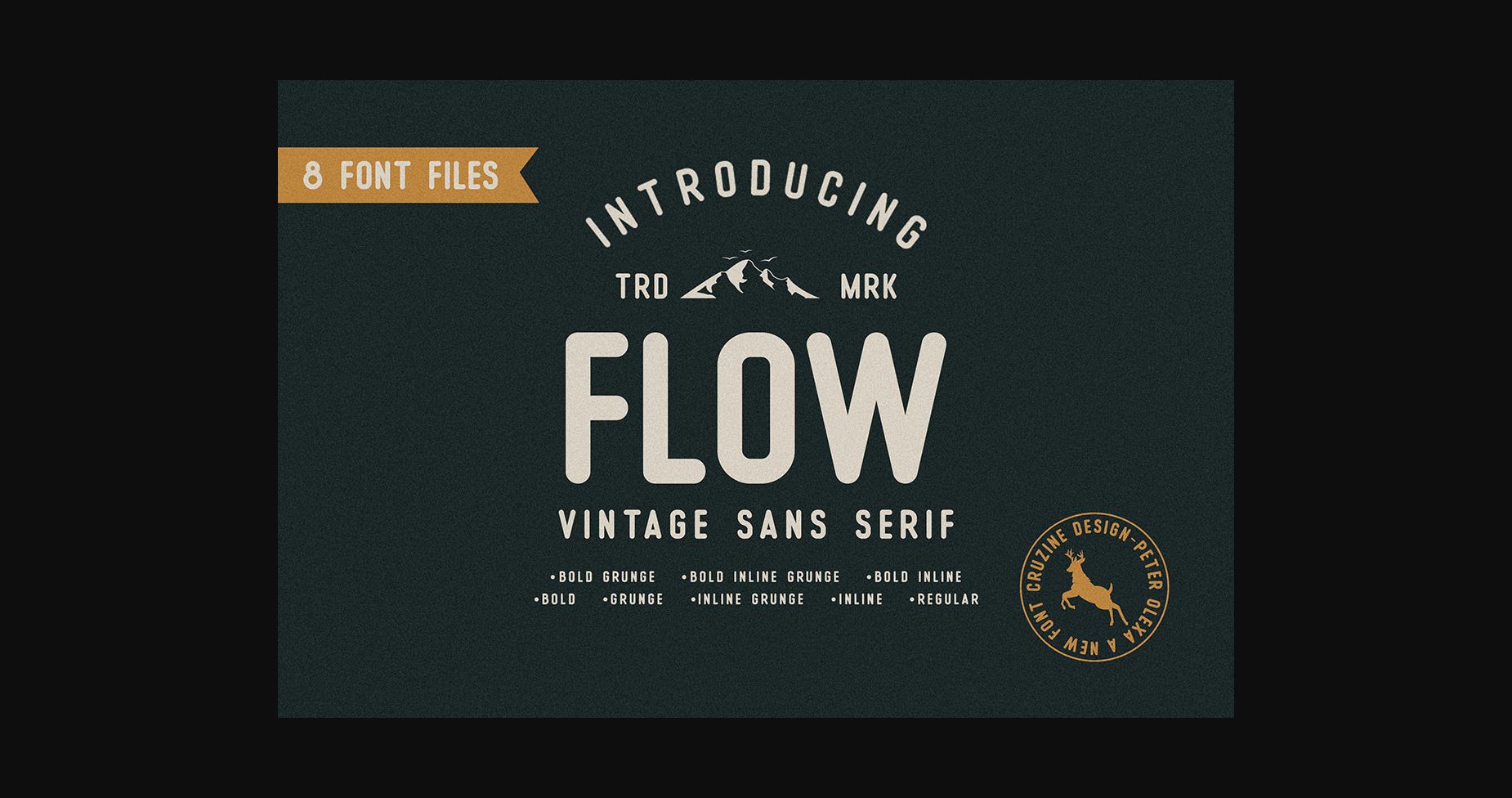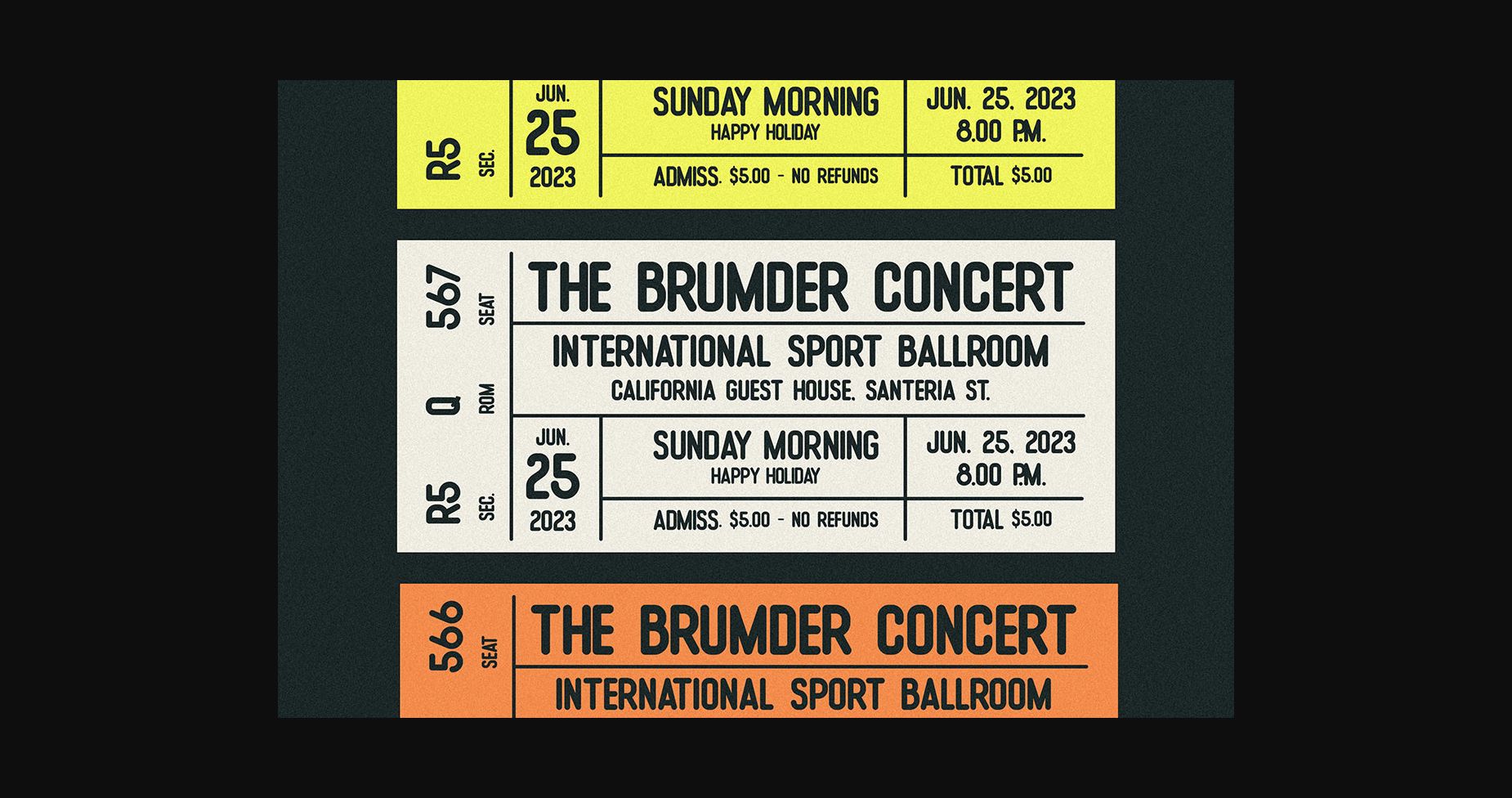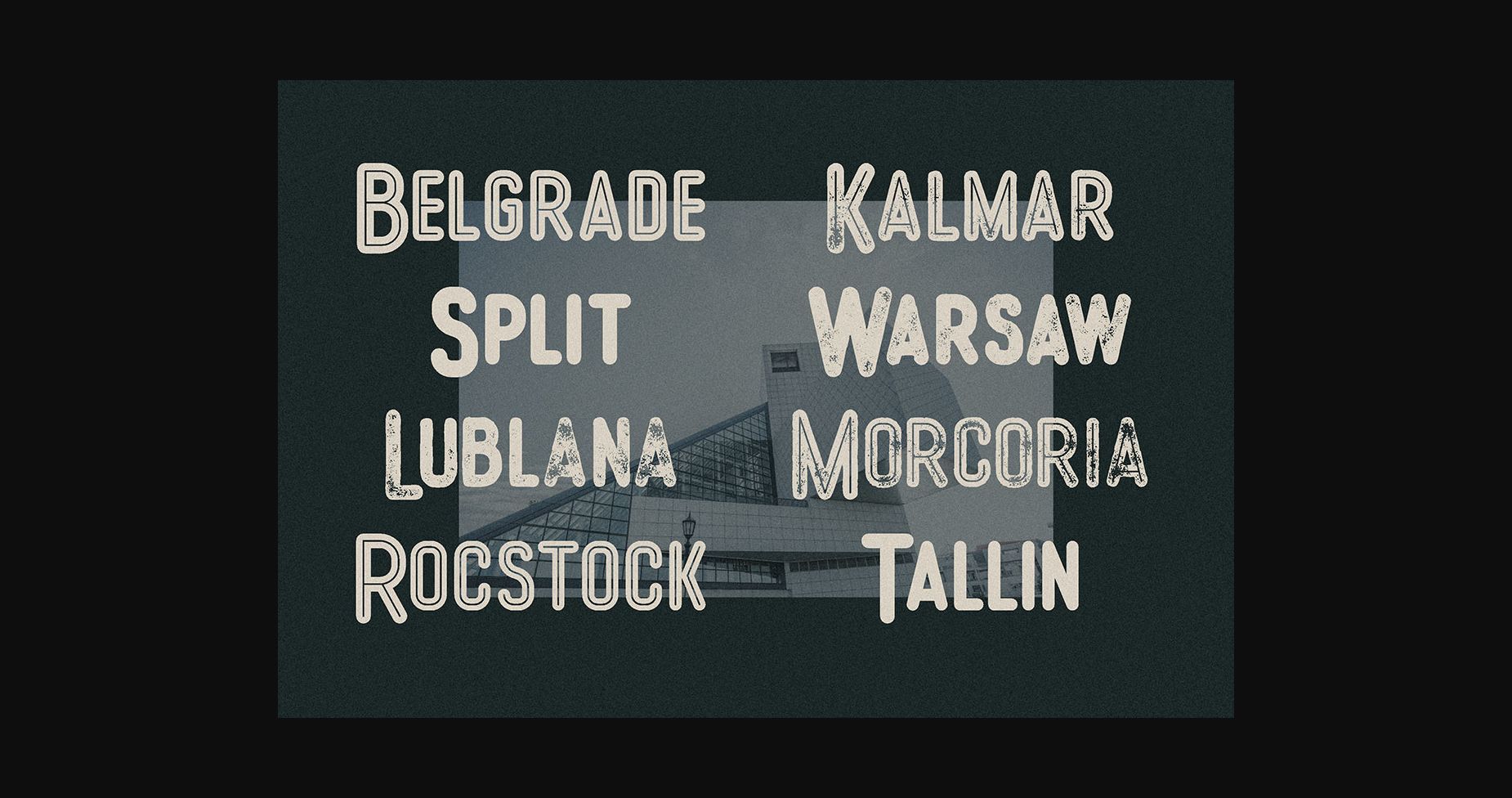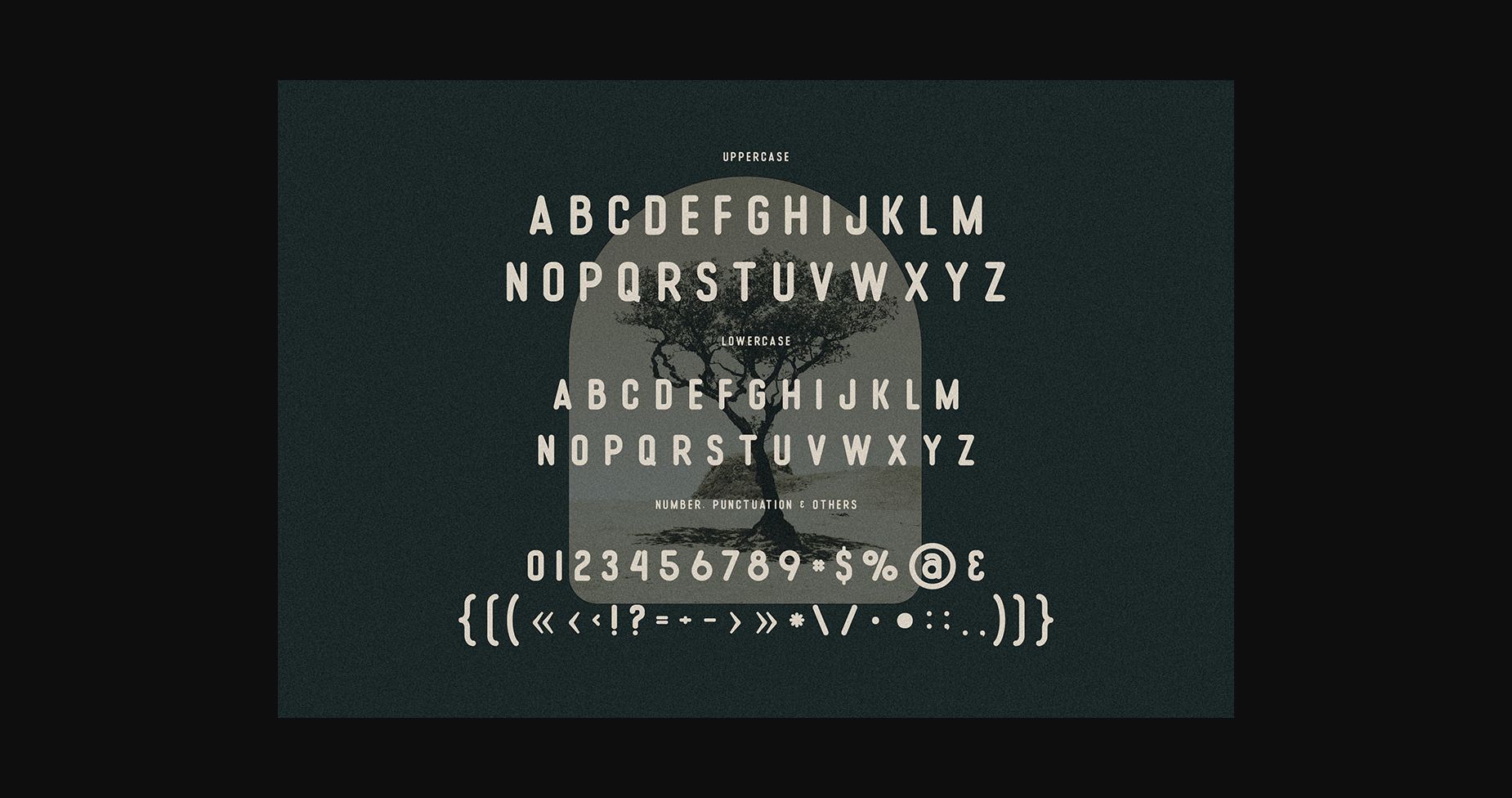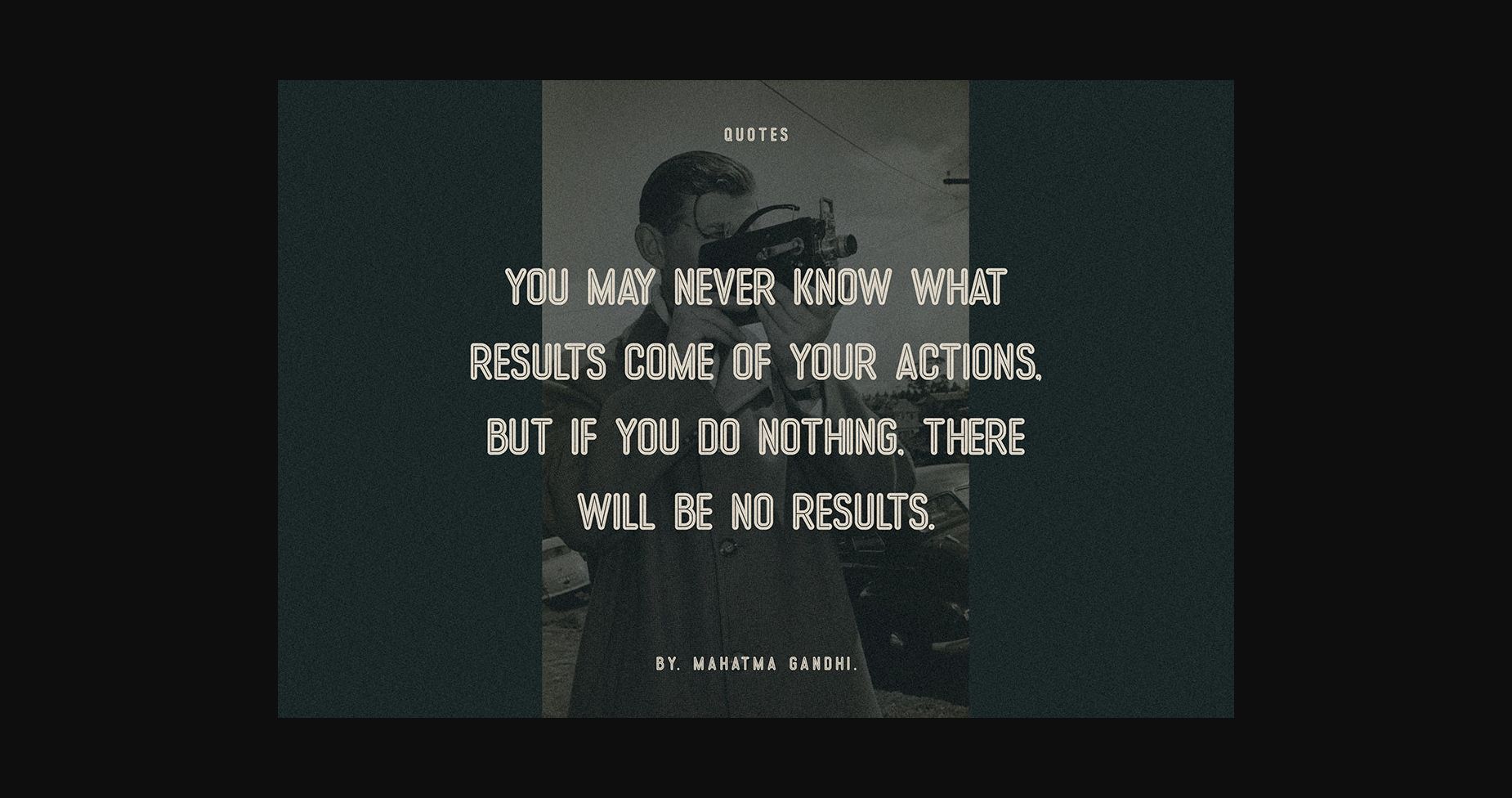
Flow Font
About Flow Font
Flow is a modern sans-serif font that is sleek, minimalistic, and clean. Its sharp, rounded edges give it a contemporary feel, while still maintaining a timeless and professional aesthetic. Its sophisticated style makes it perfect for both print and digital design projects.